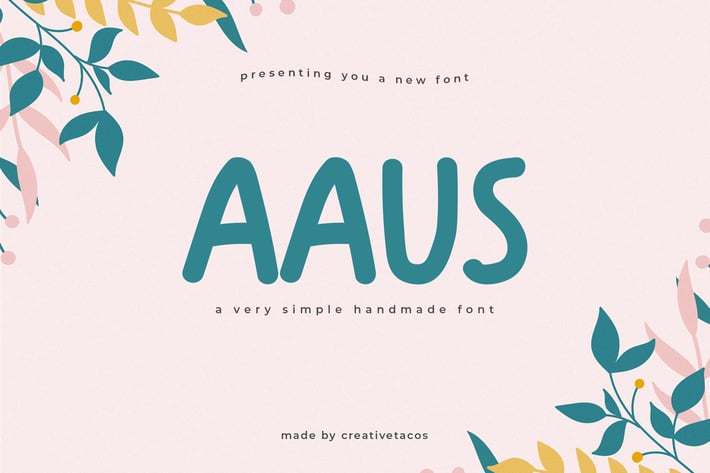
Aaus Handmade Brush Font
Aaus is a natural, cute, unique handwritten brush font that will bring a dynamic vibe to your upcoming projects. It contains uppercase, lowercase, number, punctuation and symbols.
Aaus font is excellent for various projects like packaging, presentations, logo, headlines, lettering, posters, branding, quotes, titles, note-making, magazine headings, web layouts, advertising, invitations, packaging design, kid's projects, books, and any creative project you can imagine.
Aaus Font Features:
- Uppercase Letters
- Lowercase Letters